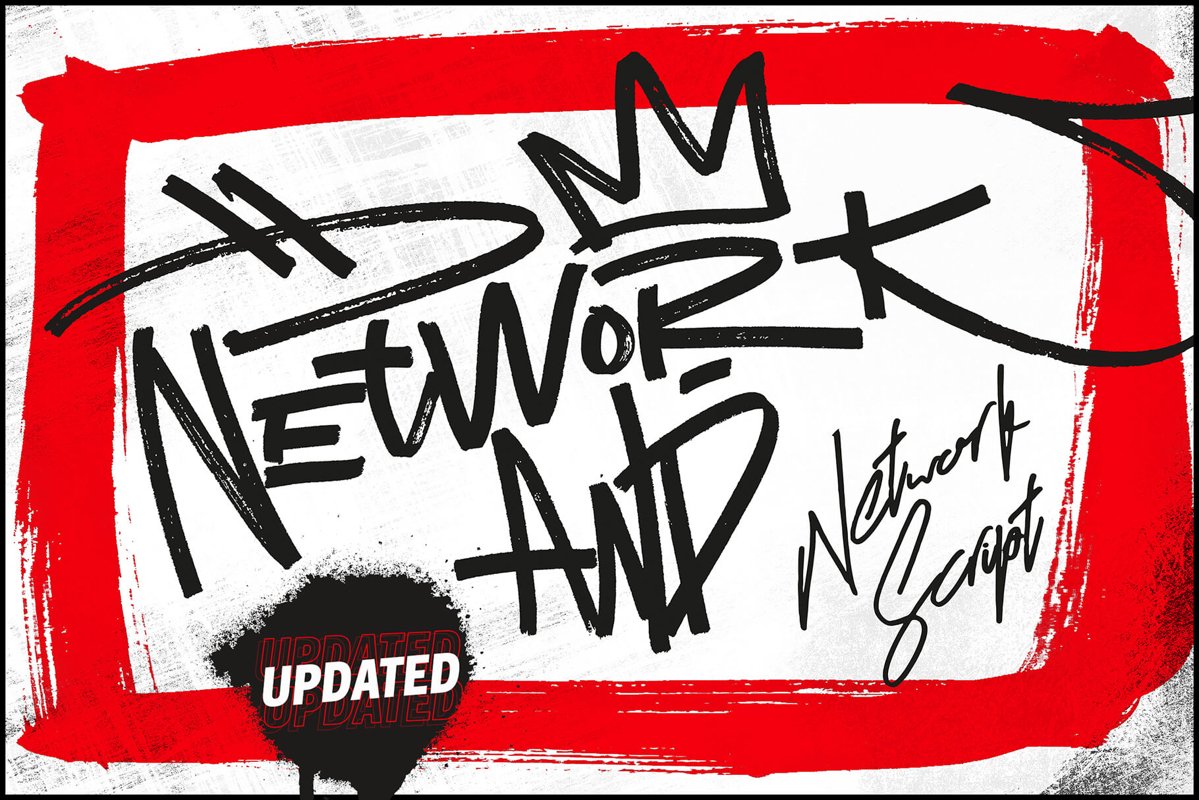
Network Font and Extras Updated
Hello there! I am introducing my new font Network! I called with this name because Network Fonts and Extras for your lifestyle rather than your designs. Network font, carefully selected from hundreds of letters. Signature styled Network Script perfectly fit next to the Network Font. Besides all this, the Network Swashes Font is designed to customize your designs.Examine the presentation for all inspirational examples and make sure for see the all pages please click on preview images to see full presentations.
Signature Style
• Original: Network Fonts and swashes created for your special designs. You can turn your dreams into reality and customize them.
• Unique Creation: An unprecedented experience a creation that no one has ever had before and will uncover your awareness.
• Create your Brand: Unlike a standard font to create a new brand concept. Be different life. Your own.
• Create your own mark: That’s the most special part of this font. A brand new identity for you.
Dynamic Design
• Motion: A brand new visual pleasure. Fluid, hard, stable.
• Extreme Characters: Dozens of glyphs will add movement to your design.
Hundreds of Alternative
• Compatibility: Hundreds of characters ready to use for any kind of gap.
The Building Effective Results
• Scale: Make your typographic arrangements wit characters of different sizes.